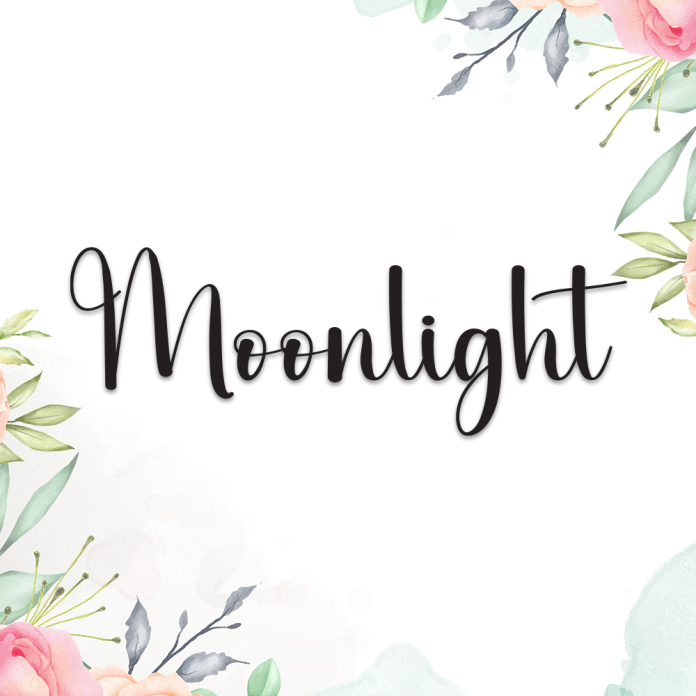
Moonlight is a graceful handwriting font that captures the calm and romantic essence of the night. With flowing strokes and a soft rhythm, it brings elegance and warmth to any design, making it perfect for projects that need a dreamy, handwritten touch.
Elegant and smooth handwritten style
Perfect for wedding invitations, quotes, branding, and personal notes
Natural flow with a touch of sophistication
Includes uppercase, lowercase, numbers, and punctuation
Bring a touch of night-time magic to your designs with Moonlight.